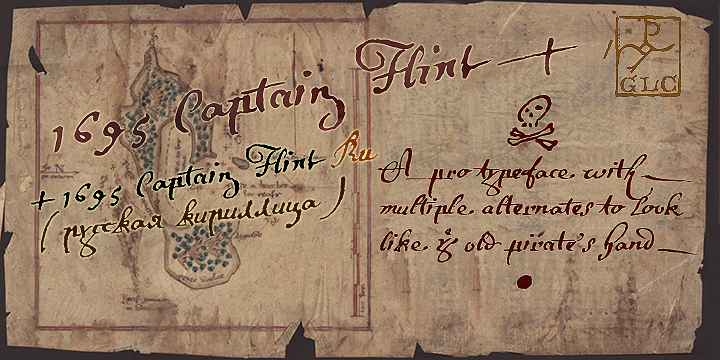
The 1695 Captain Flint Font is perfect for pirate-themed designs, nautical restaurant branding, adventure movie posters, maritime museum materials, treasure hunt invitations, swashbuckling game graphics, historical maritime documents, rum distillery labels, coastal bar signage, and seafaring adventure books.
What makes the 1695 Captain Flint Font exciting is its authentic ability to capture the rugged spirit and adventurous soul of the Golden Age of Piracy through weathered letterforms that tell tales of high seas adventure and legendary treasure hunts. This captivating typeface features distressed edges, nautical character variations, and sea-worn textures that instantly evoke images of creaking ships, mysterious treasure maps, and fearless pirates sailing uncharted waters in search of fortune and glory.
The 1695 Captain Flint Font family includes regular, bold, weathered, and decorative versions, along with nautical symbols, pirate ornaments, and maritime decorative elements that enhance its swashbuckling appeal across various adventure-themed design applications.
Whether you're creating authentic pirate branding or designing maritime entertainment materials, 1695 Captain Flint Font Free Download delivers maximum nautical impact and genuine seafaring authenticity. Its expertly distressed letterforms ensure excellent readability while maintaining that essential weathered character that speaks to adventure seekers and maritime enthusiasts. The font's special features include contextual alternates, nautical ligatures, and sea-worn variations that automatically create authentic pirate ship aesthetics. Adventure theme designers and maritime brand creators consistently choose this font for projects requiring genuine pirate spirit and high seas credibility. The 1695 Captain Flint Font transforms ordinary text into legendary tales of maritime adventure, making it an essential treasure in any designer's swashbuckling typography chest.